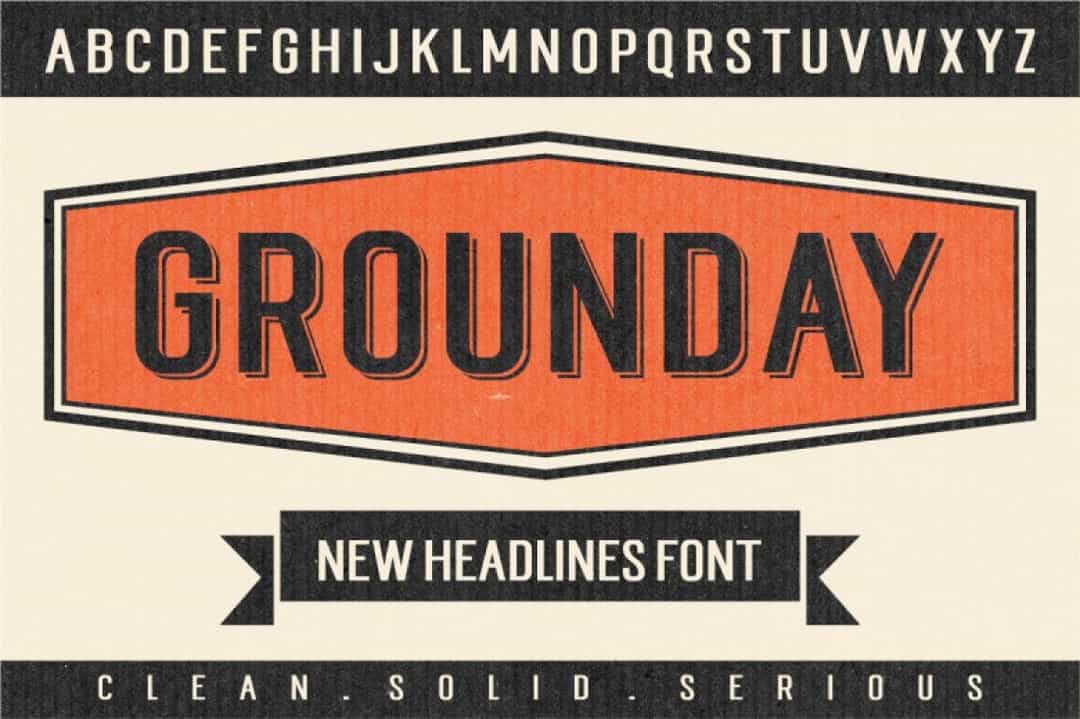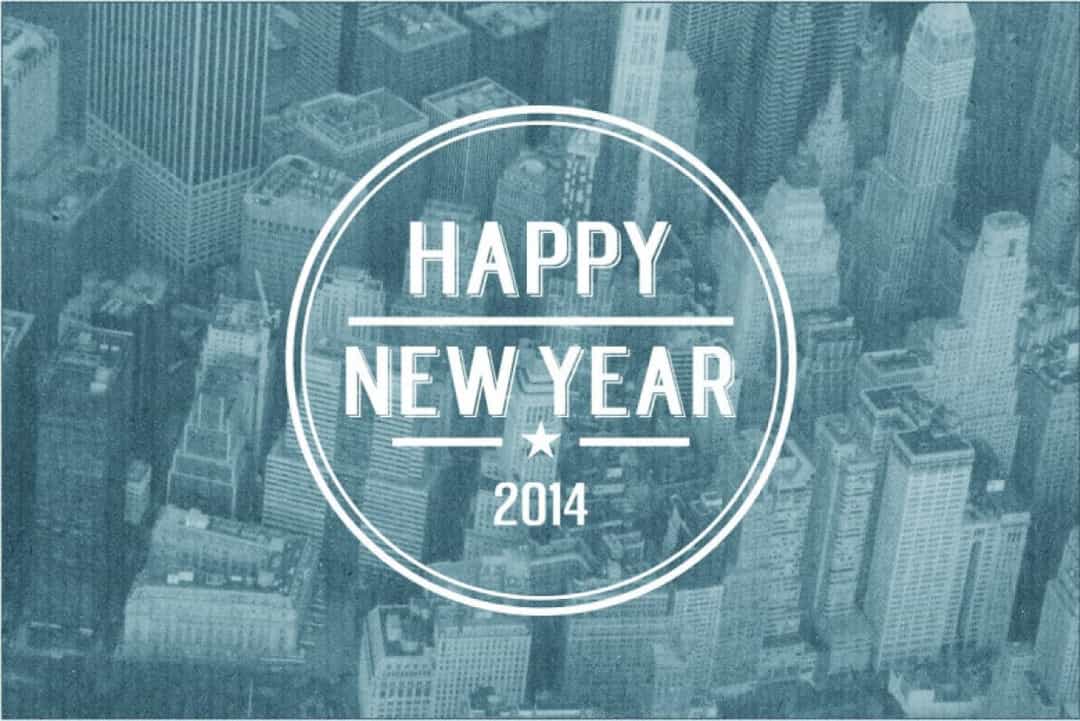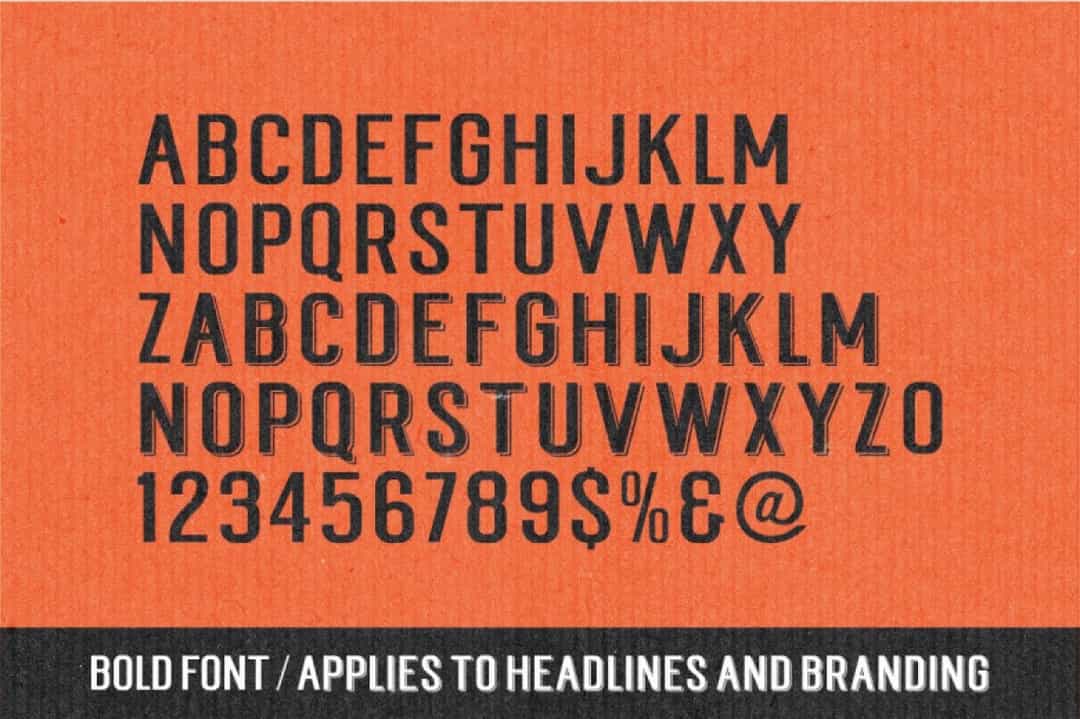
Grounday is an easily accessible sans serif font that features aggressive yet compact characters available only with uppercase characters. Its modern form makes it suitable for advertising headlines as well as branding applications; access is granted using uppercase keys while for alternative shadowed version lowercase keys must be used to gain entry.